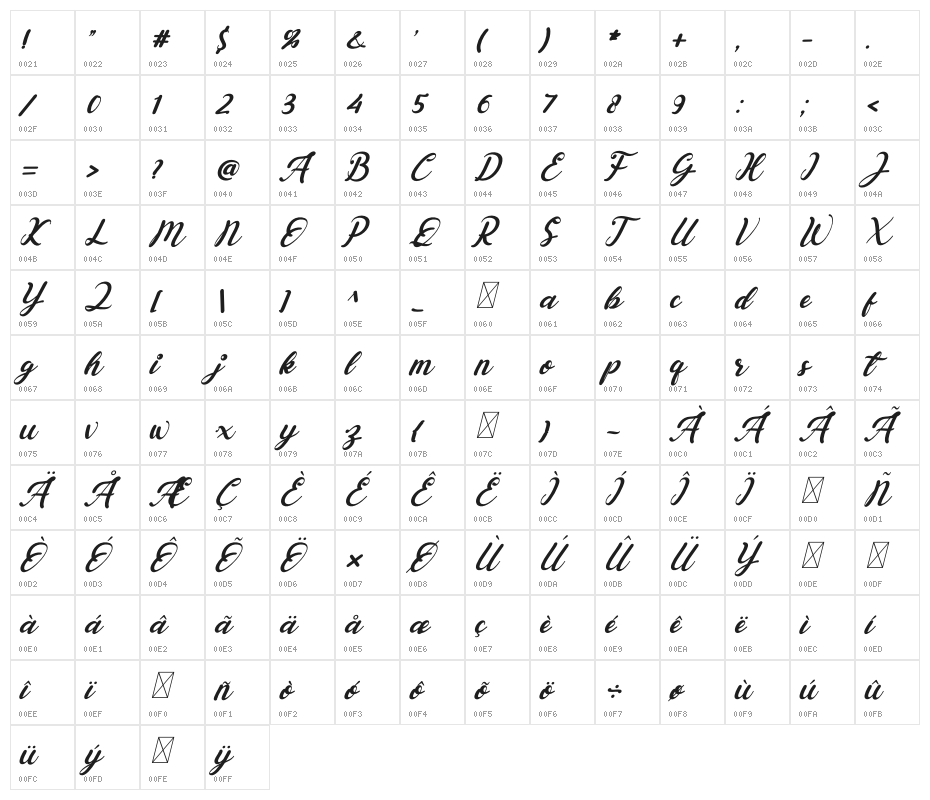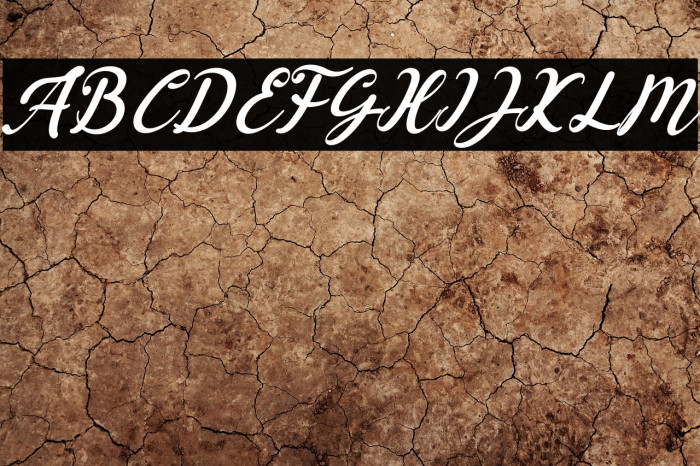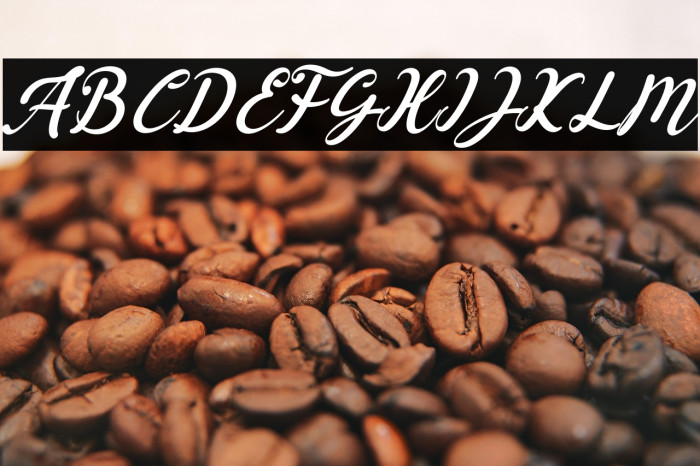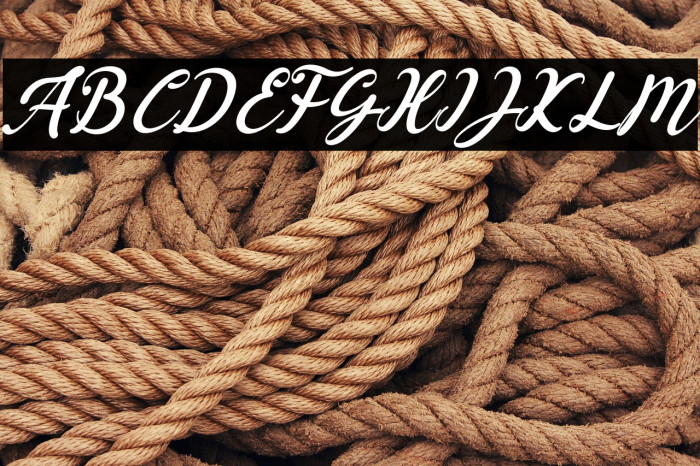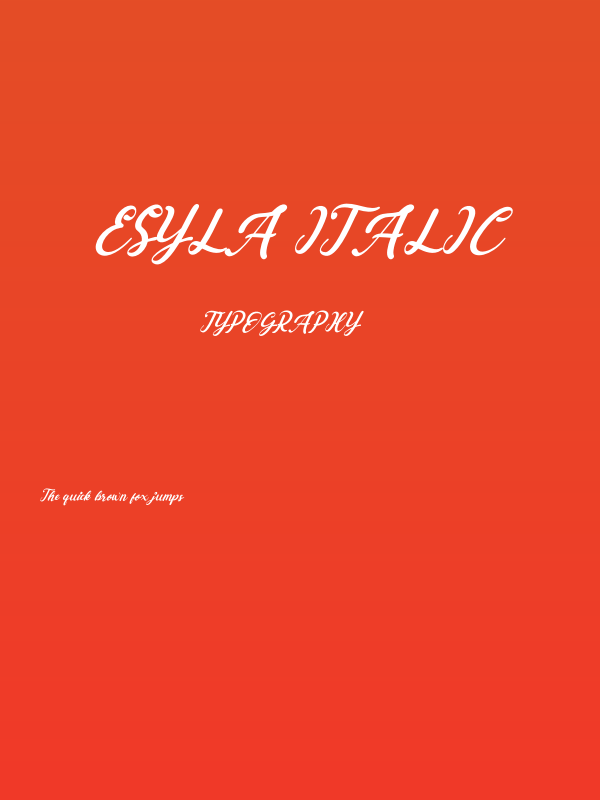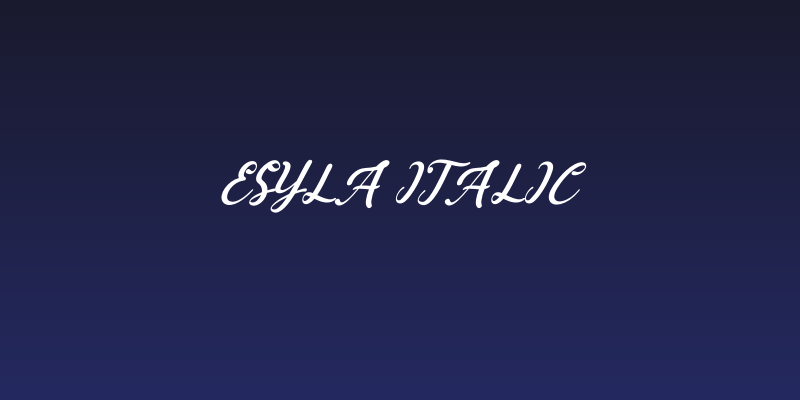
Esyla Italic Font
Esyla Italic Description
This font features an elegant and flowing script style, characterized by its smooth, cursive letterforms with a slight slant, giving it a dynamic and graceful appearance. The strokes are bold and consistent, providing a strong visual impact while maintaining readability. The uppercase letters are slightly larger and more ornate, while the lowercase letters are more subdued, creating a balanced and harmonious look. The numerals and special characters are designed to complement the letters, maintaining the same fluid and stylish aesthetic.
| Proposed Projects | Ideal for wedding invitations, greeting cards, branding, and elegant logo designs. |